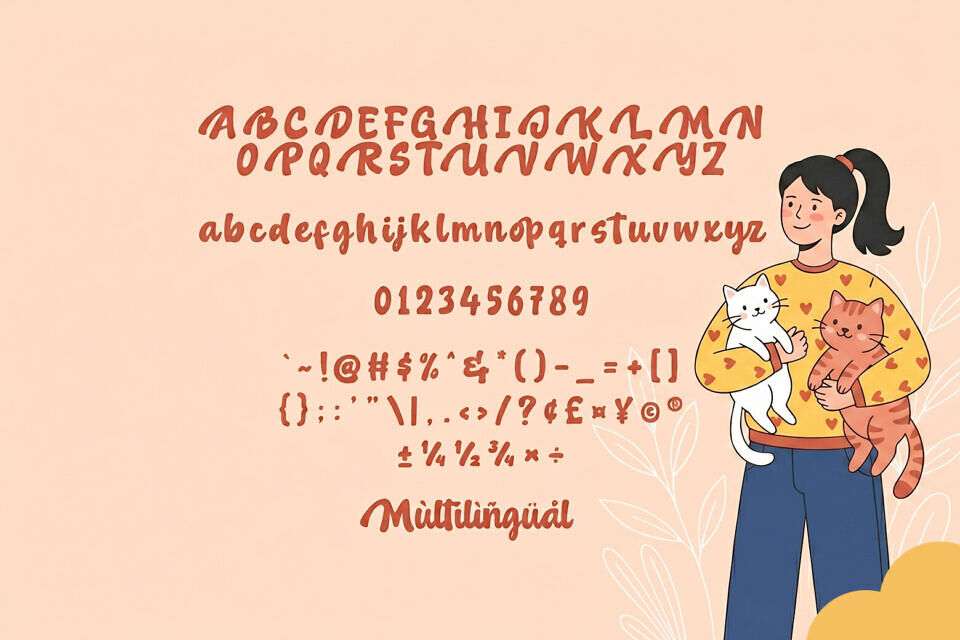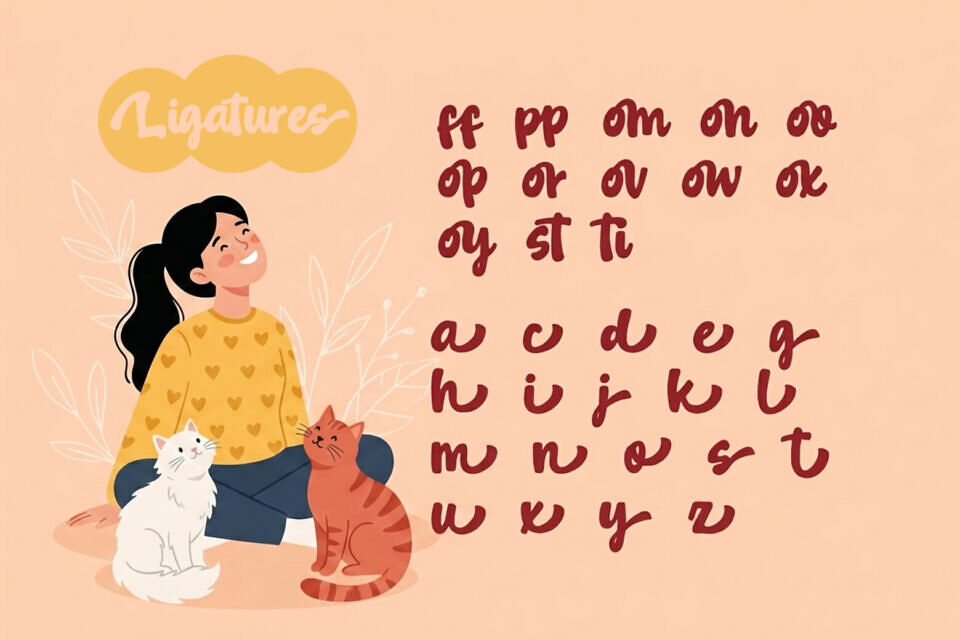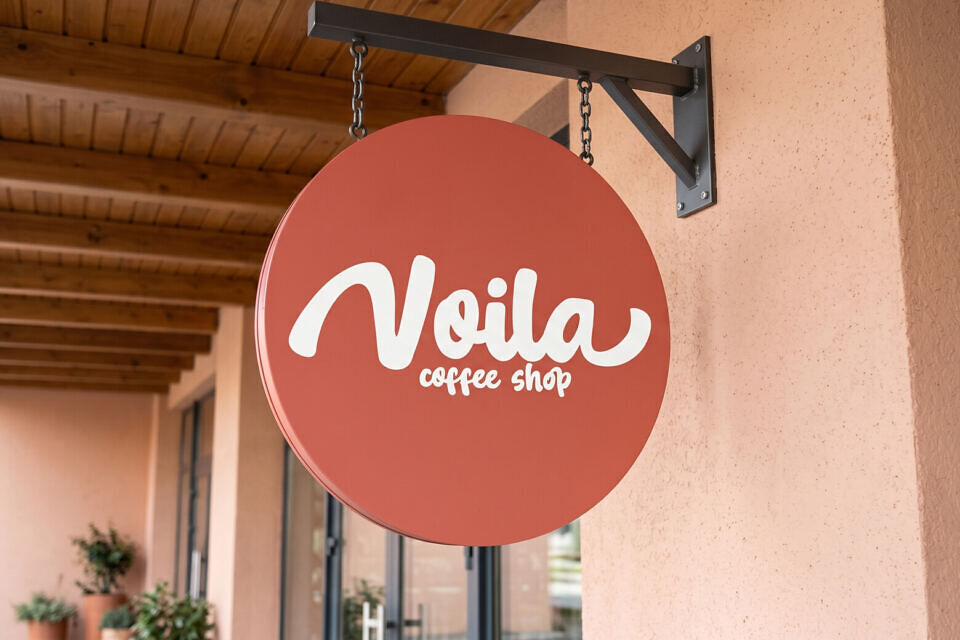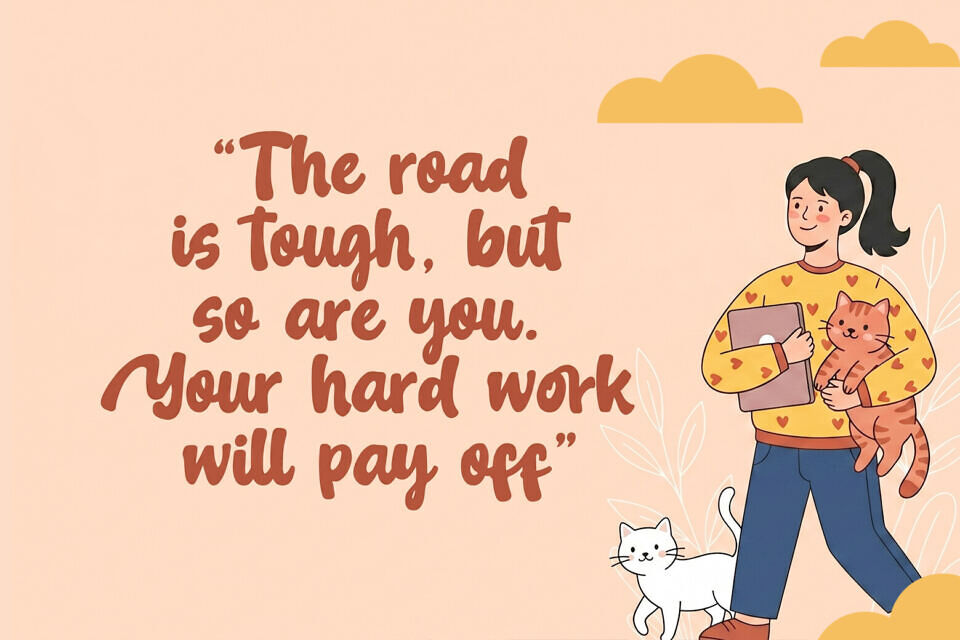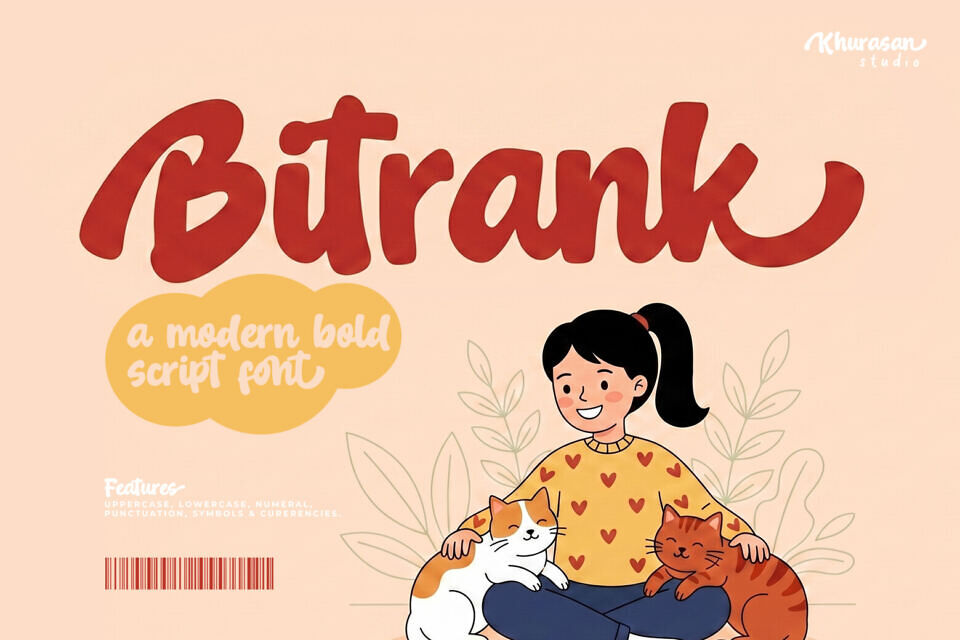
Bitrank Font
Bitrank is a script handwriting font with a natural brush effect, designed to capture the beauty of real hand-lettering. Every stroke feels alive — smooth, expressive, and full of personality. It delivers an authentic handwritten charm that makes your designs feel warm, stylish, and premium.
Perfect for logos, branding, product packaging, quotes, social media posts, wedding designs, and creative projects, Bitrank adds a personal and artistic touch that instantly stands out. Its flowing connections and dynamic brush texture create a sense of movement and emotion, making your text feel human and memorable.